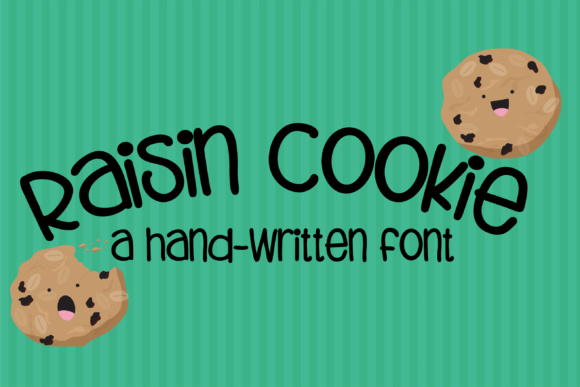
Introducing ZP Raisin Cookie Font: A Stroke of Whimsical Charm for Your Creative Endeavors!
Step into a world of playful typography with ZP Raisin Cookie Font, a delightful sans serif creation from the imaginative minds at Illustration Ink. Inspired by the sweet delight of raisin cookies, this font exudes a sense of warmth and cheer that will add a touch of magic to your digital designs.
Dive into the captivating world of this whimsical hand-printed font, where stubby ascenders and descenders dance harmoniously, creating a visual symphony that's both unique and captivating. Each letter stands tall with a uniform height, offering a cohesive and balanced appearance that draws the eye with its playful charm.
ZP Raisin Cookie Font is crafted with meticulous attention to detail, ensuring that every curve, stroke, and line flows seamlessly. Its endearing personality shines through in every character, adding a touch of whimsy and playfulness to your projects.
Whether you're creating eye-catching posters, designing heartwarming invitations, crafting delightful social media graphics, or adding a dash of personality to your digital content, ZP Raisin Cookie Font is the perfect choice for infusing your work with a sense of joy and lightheartedness.
So, embark on a creative adventure with ZP Raisin Cookie Font, let your imagination soar, and watch as your designs come alive with a captivating charm that's sure to leave a lasting impression. Unleash your creativity and experience the magic of whimsical typography today!